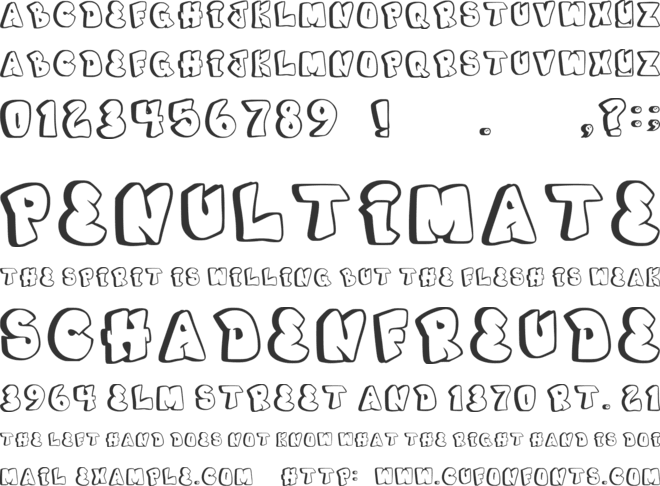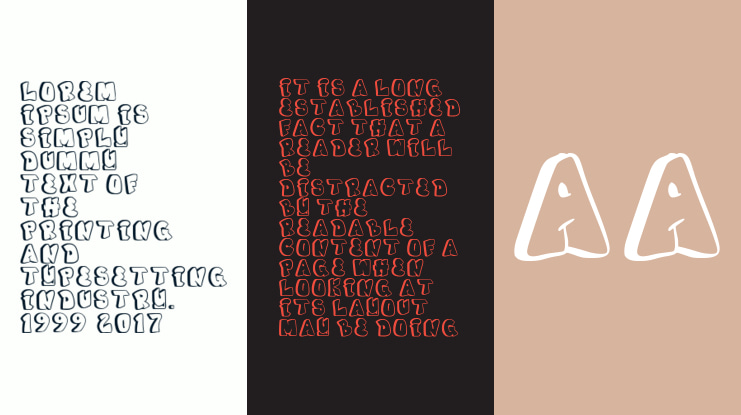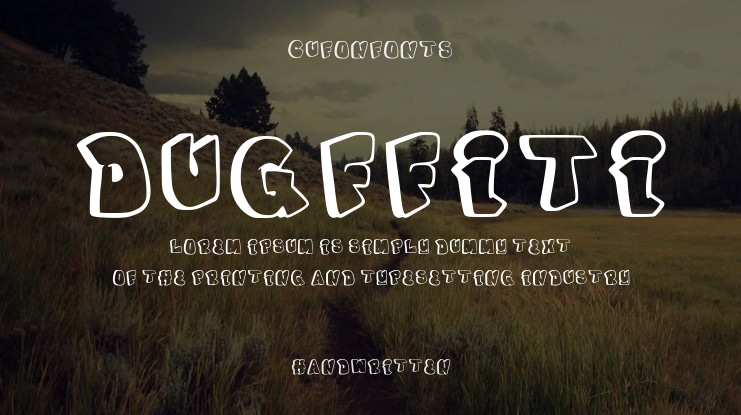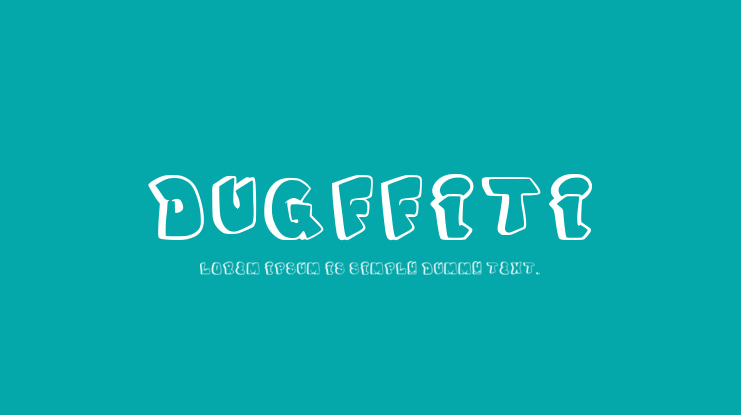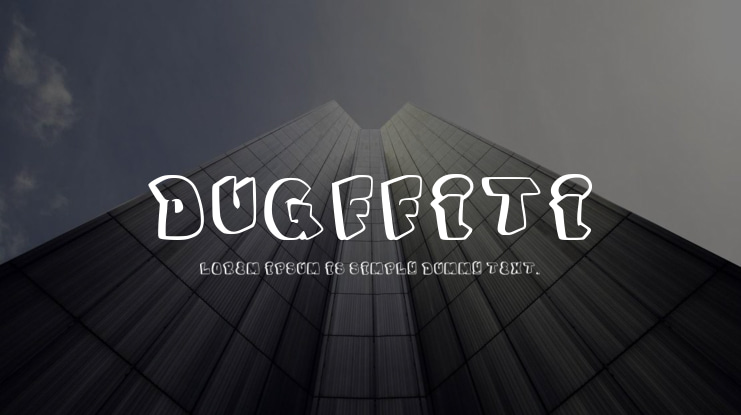
Dugffiti Font
Several new fonts are in the works! Presenting Dugfitti, a brand new, free font. I needed a simple graffiti style, and this is the result. I hope you enjoy it! It’s completely free to use for any purpose!